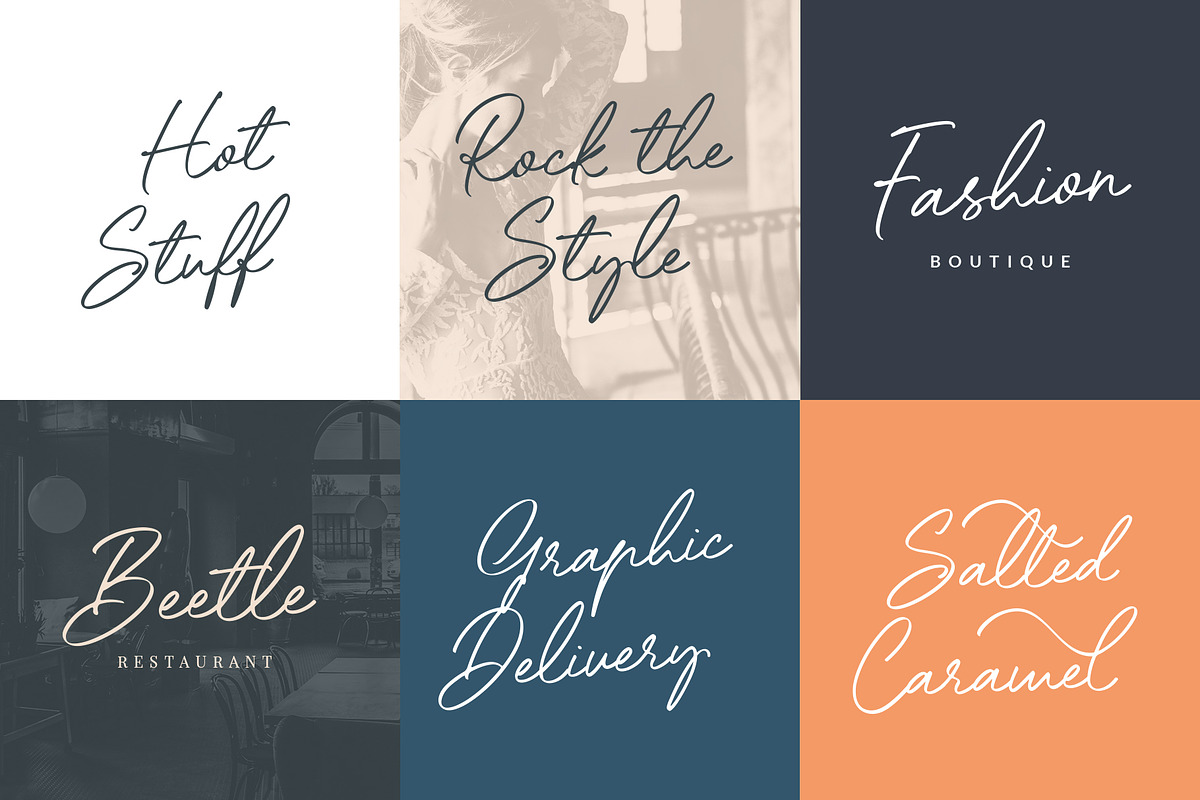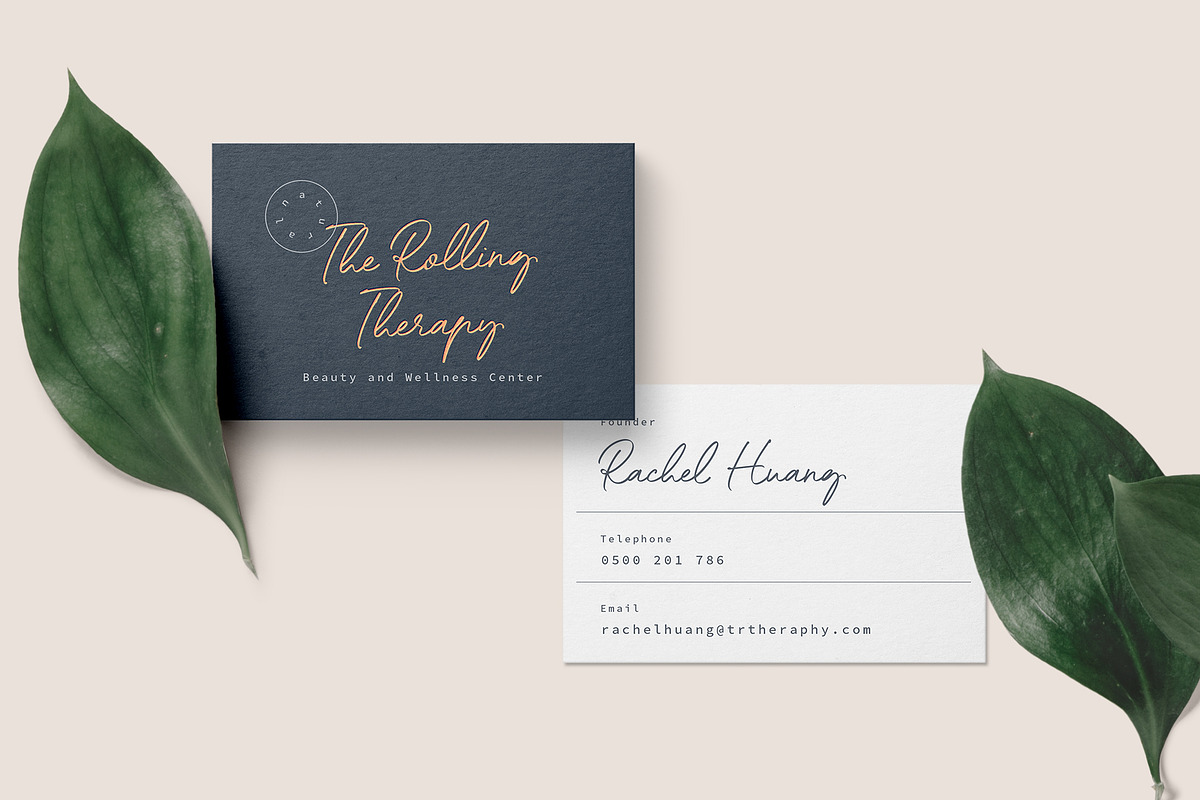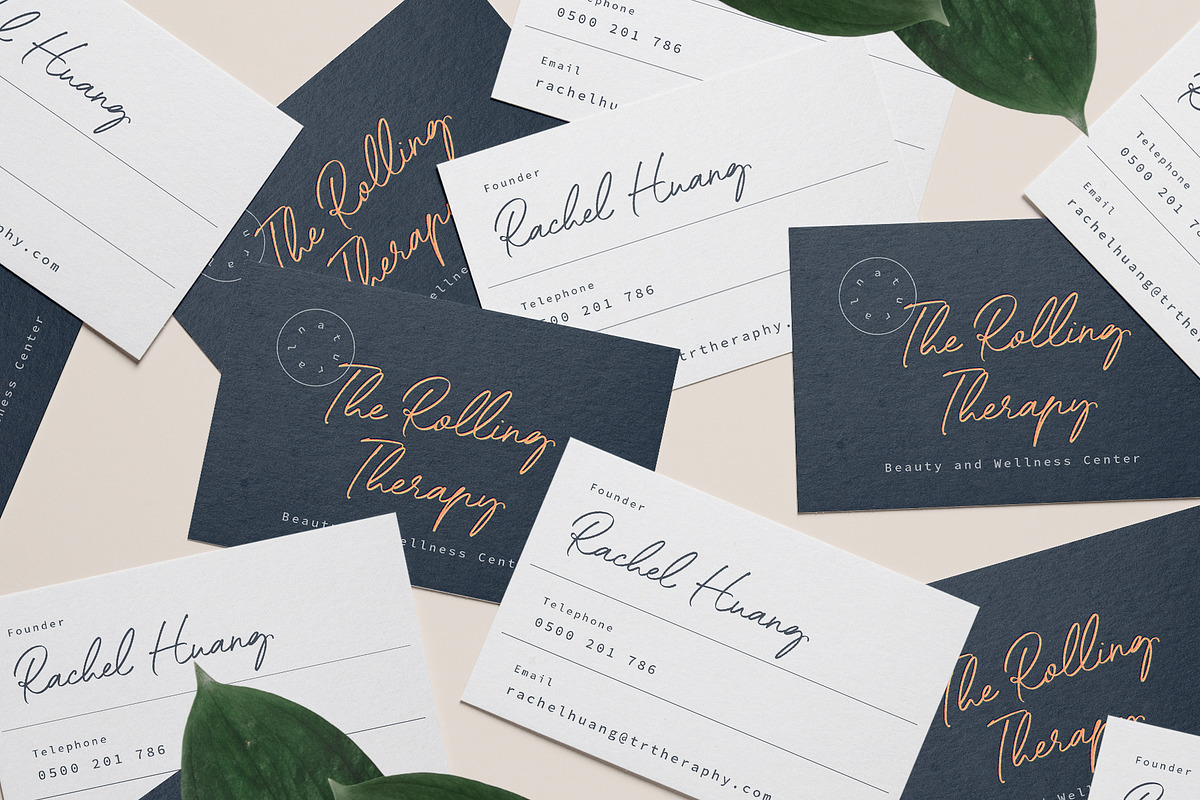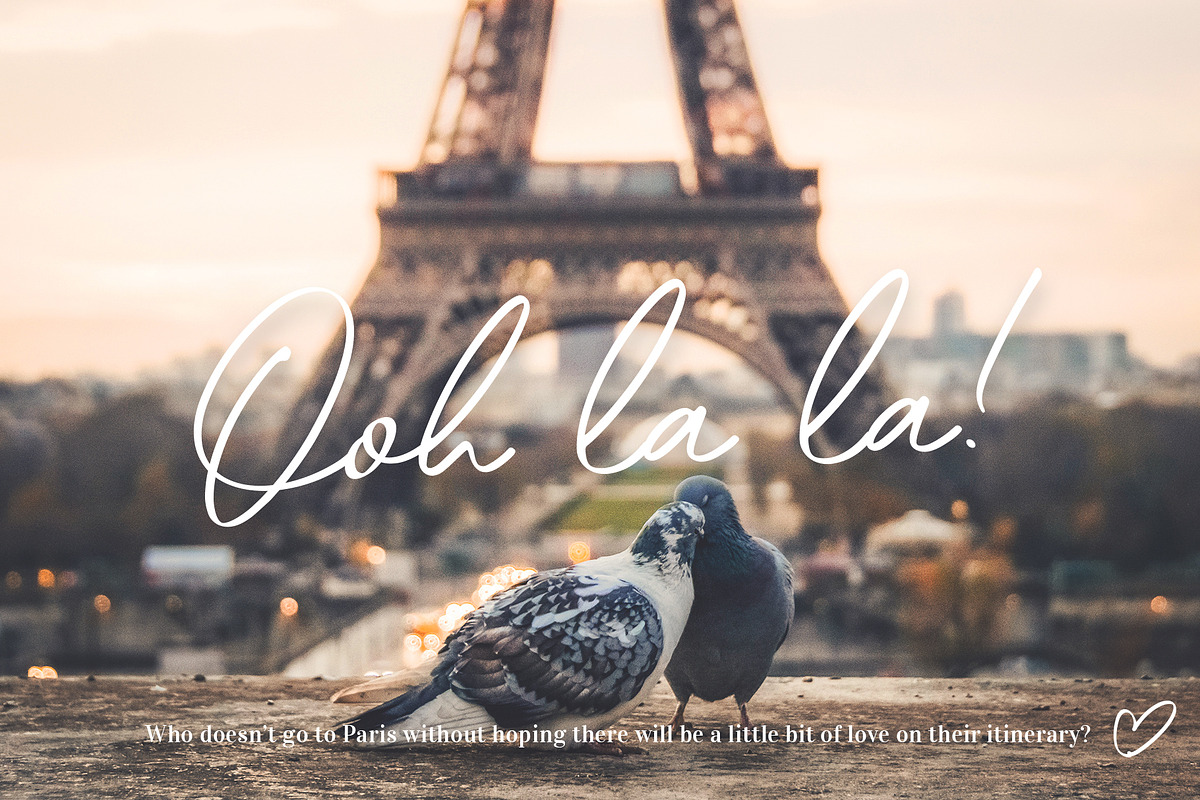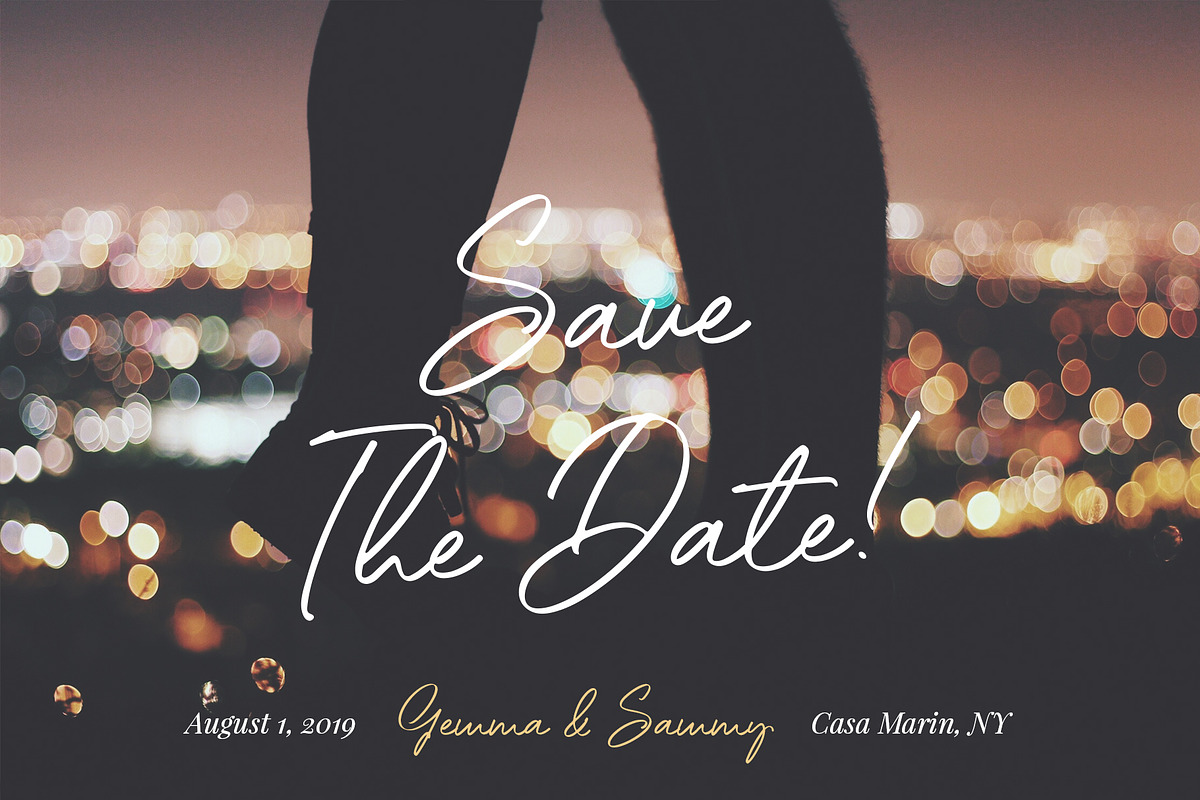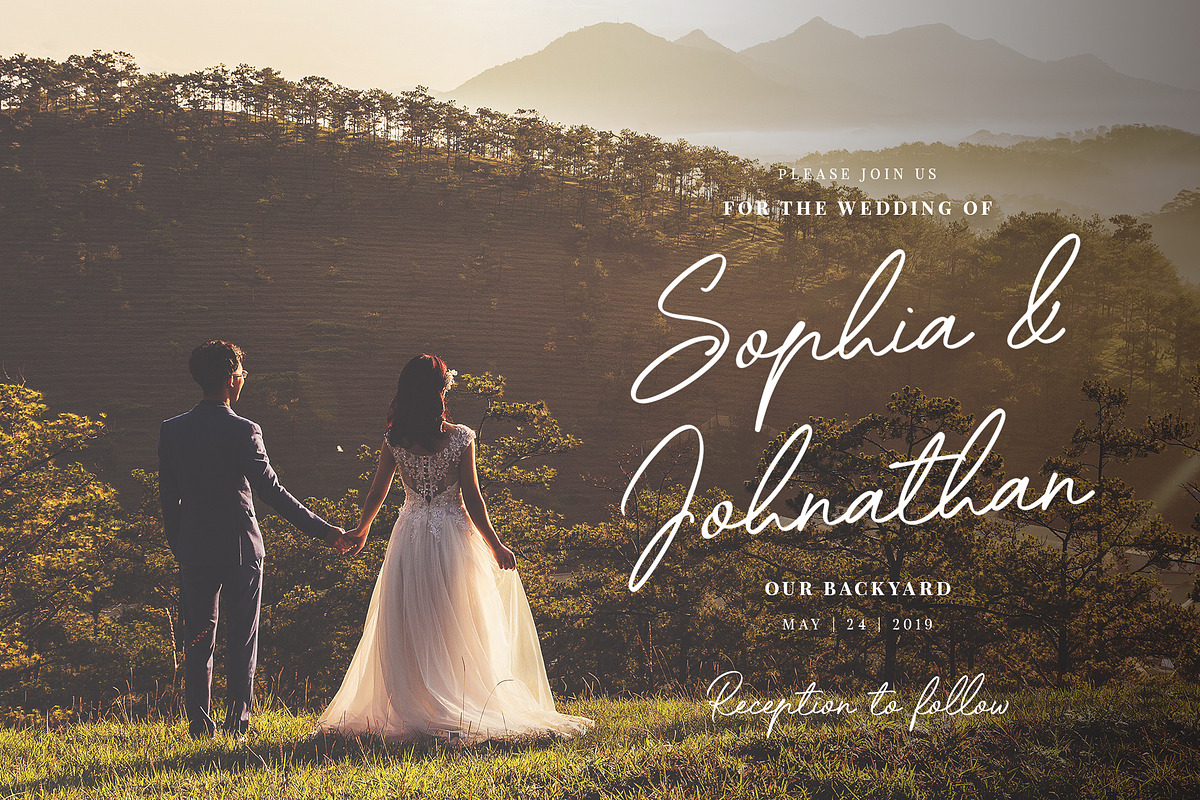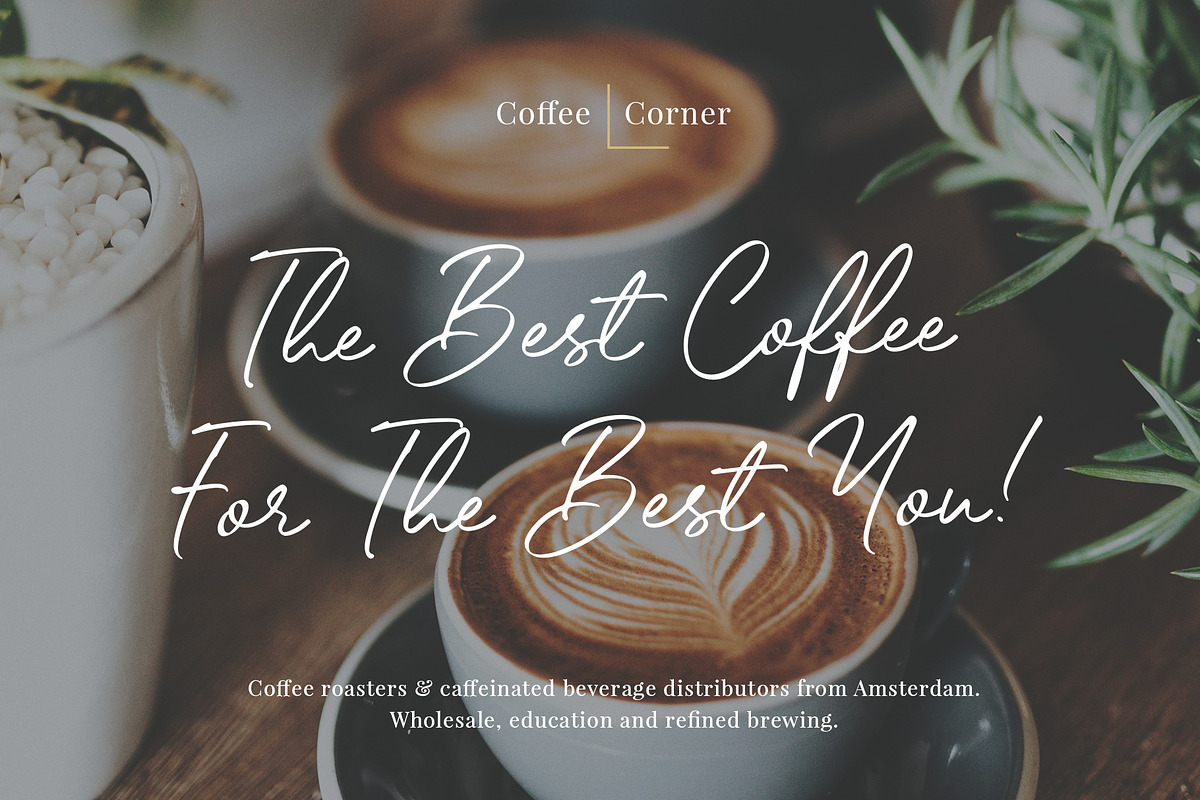
Little Ophelia Handwritten Font
After quite a long time I am super happy to present Little Ophelia, a handwritten script font with smooth edges. Little Ophelia has a super nice and slightly slanted look that replicates a very organized, but not to organized calligraphic handwrite.
Little Ophelia is super versatile, so you can use it to create super cute wedding invitations, prints, to make inspirational Instagram posts or to create cool packaging designs or evan to design handwritten logos.